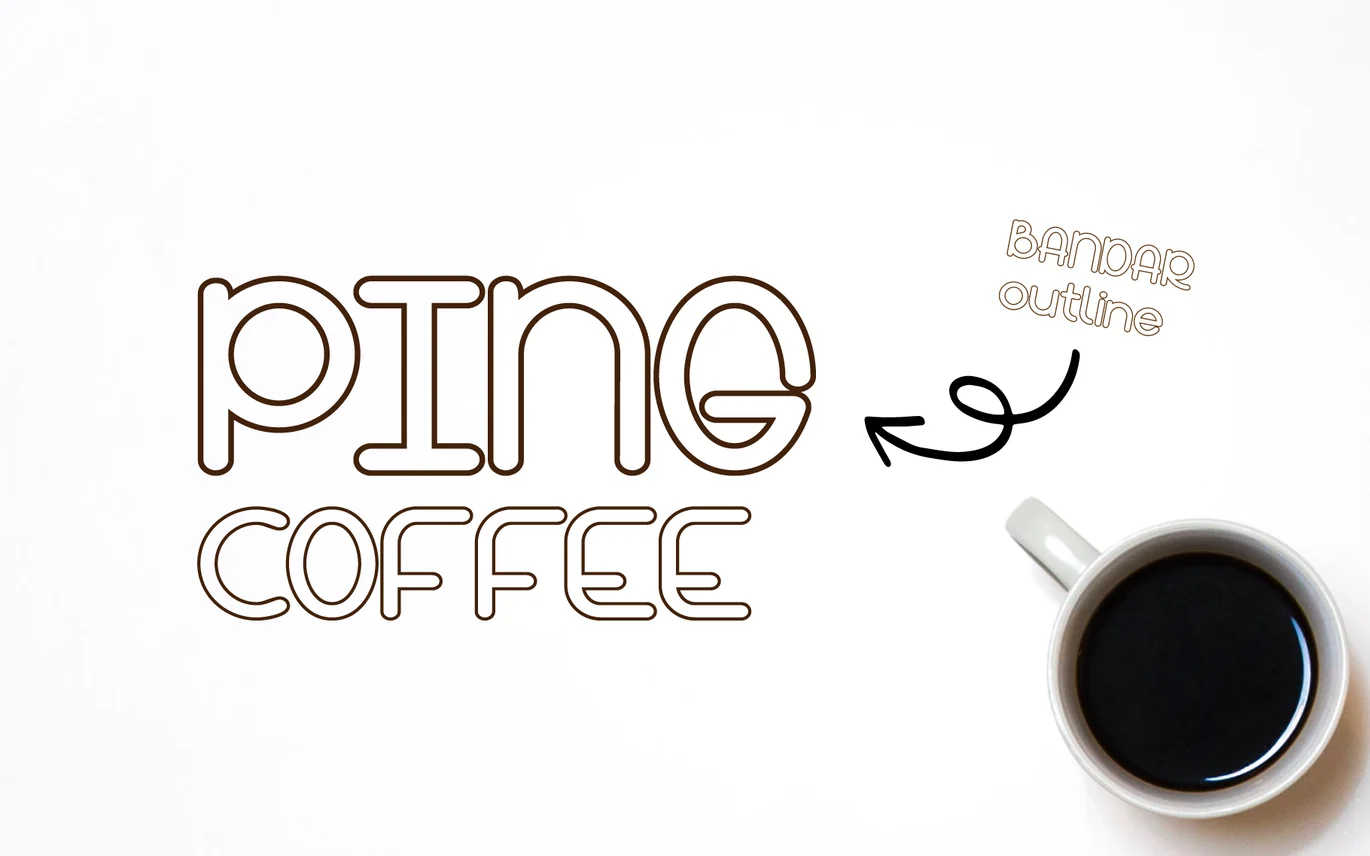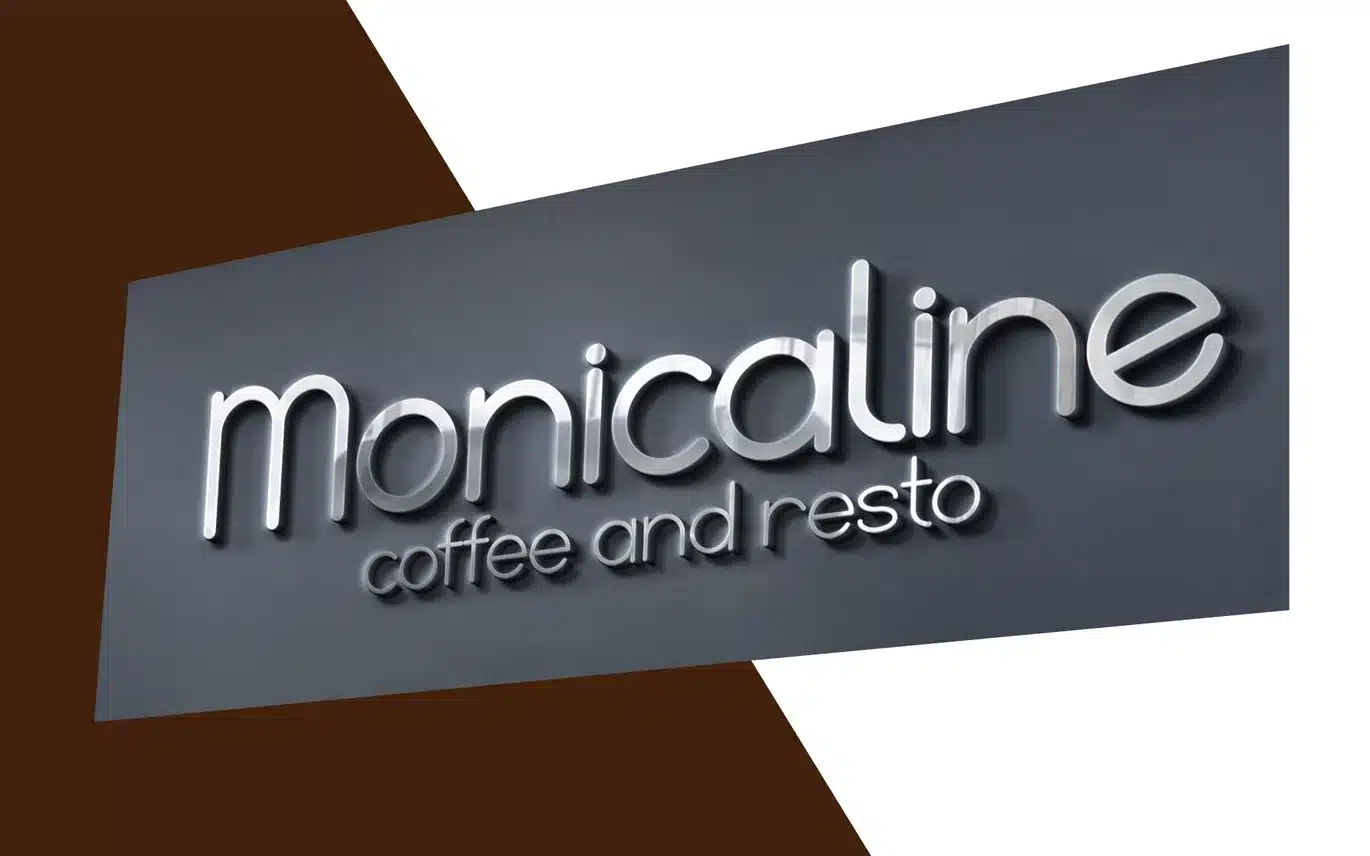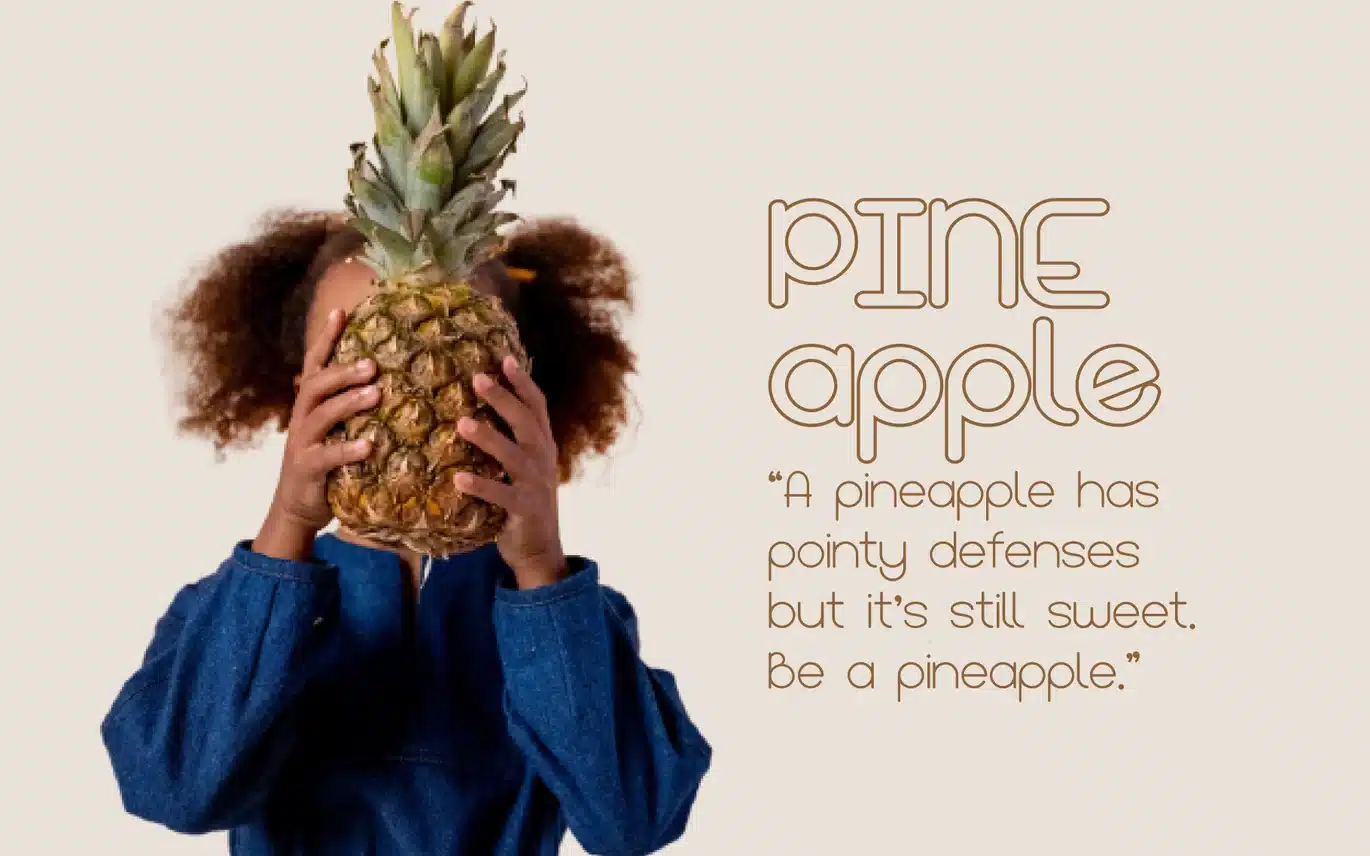
Bandar Sans Serif Modern Font
Bandar is a sans serif sans-serif font family comes in 5 weights; regular, italic, bold, bold italic and outline. Bandar works well in any graphic design project and purpose both as a display typeface and in smaller sizes.
Bandar is perfect to use for any kind of design such as branding projects, logo, brochures, business card, social media posts, advertisements, product packaging, product designs, label, photography, watermark, invitation, brand company, stationery and any projects.
Regular style, Bold Style, Italic Style, Bold Italic Style, Outline Style
- Alternate Style